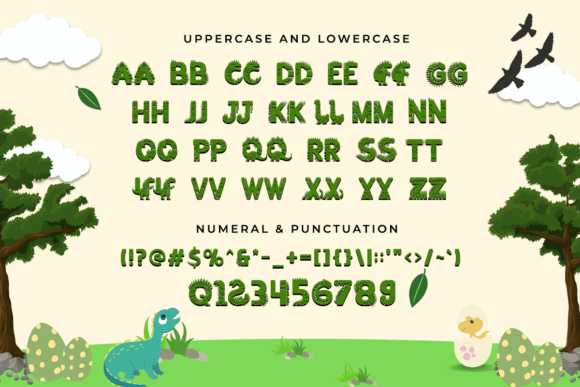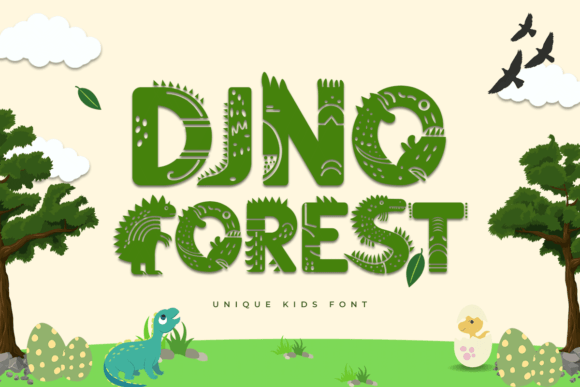
Unleash the Roar of Creativity with Dino Forest Modern Dino Kids Font
Step into a prehistoric adventure with Dino Forest Modern Dino Kids Font, a delightful and contemporary font that brings the magic of dinosaurs to life. This charming font is perfect for sparking creativity in young minds, making it an ideal choice for children’s books, educational materials, party invitations, and more.
A Whimsical Forest of Dinosaur Delights
Dino Forest Modern Dino Kids Font features charming dinosaur characters that roam through a whimsical forest, bringing a sense of wonder and excitement to any project. Each letter is designed to engage and entertain, making learning fun and exciting for kids. Whether you’re a designer, crafter, or educator, this font is sure to inspire your creativity and add a touch of prehistoric magic to your work.
Perfect for Kids’ Projects and Educational Materials
Dino Forest Modern Dino Kids Font is specifically designed for use in kids’ projects, educational materials, and children’s books. The font’s playful and adventurous spirit makes it perfect for:
- Children’s books and storytelling
- Educational materials, such as worksheets and activity sheets
- Party invitations and decorations
- Crafts and DIY projects
- Websites and blogs focused on kids and education
- Customize your text with unique and playful elements
- Create engaging and interactive content for kids
Why Choose Dino Forest Modern Dino Kids Font?
There are many reasons why designers, crafters, and educators love Dino Forest Modern Dino Kids Font. Here are just a few:
- Unique and playful design: The font’s whimsical design and charming dinosaur characters make it perfect for kids’ projects and educational materials.
- Versatility: The font can be used for a wide range of projects, from children’s books to party invitations and more.
- Fun and engaging: The font’s playful spirit makes it perfect for creating engaging and interactive content for kids.
Tips for Using Dino Forest Modern Dino Kids Font
Here are a few tips for getting the most out of Dino Forest Modern Dino Kids Font:
- Experiment with different colors and textures: The font’s playful design looks great with bright colors and fun textures.
- Use the font’s glyphs and swashes to add visual interest: The font’s built-in glyphs and swashes can add an extra layer of creativity and visual interest to your projects.
- Pair the font with other playful fonts: Dino Forest Modern Dino Kids Font pairs well with other playful fonts, creating a fun and cohesive look.
Dino Forest Modern Dino Kids Font is a delightful and contemporary font that’s perfect for sparking creativity in young minds. With its whimsical design, charming dinosaur characters, and PUA encoding, this font is ideal for kids’ projects, educational materials, and more. Whether you’re a designer, crafter, or educator, this font is sure to inspire your creativity and add a touch of prehistoric magic to your work.